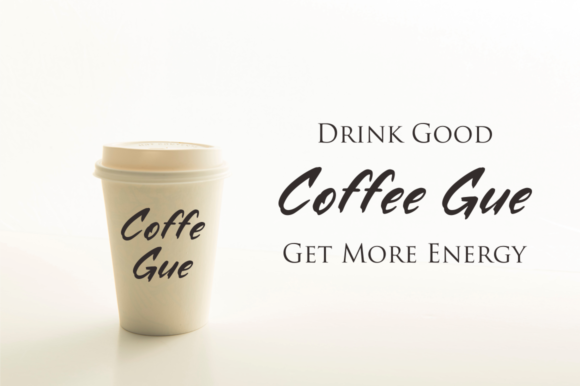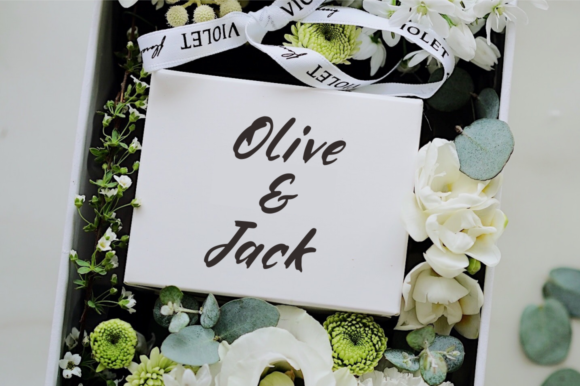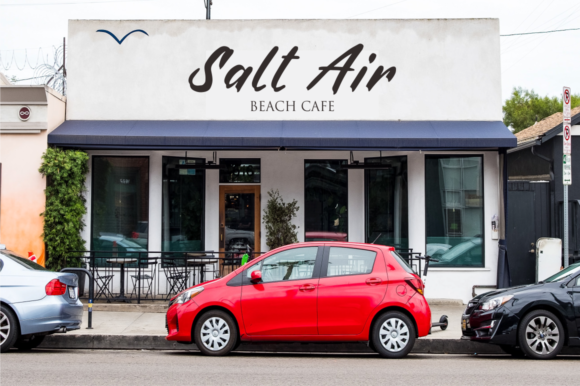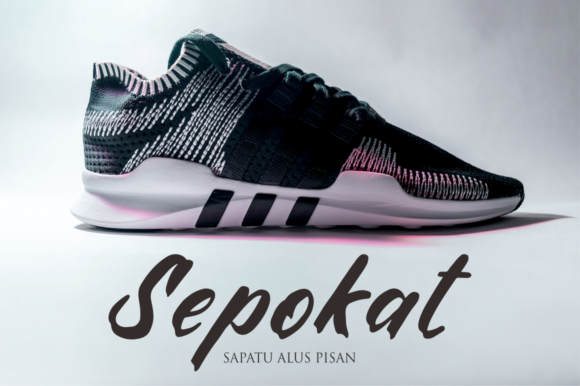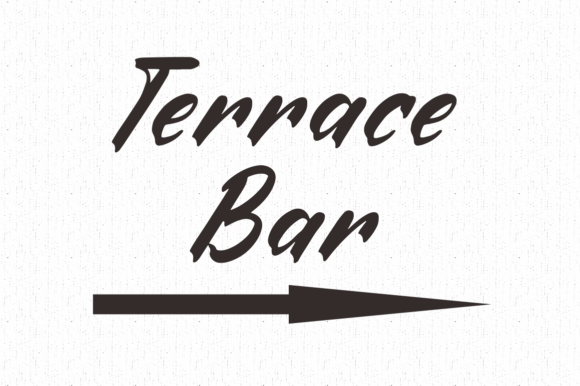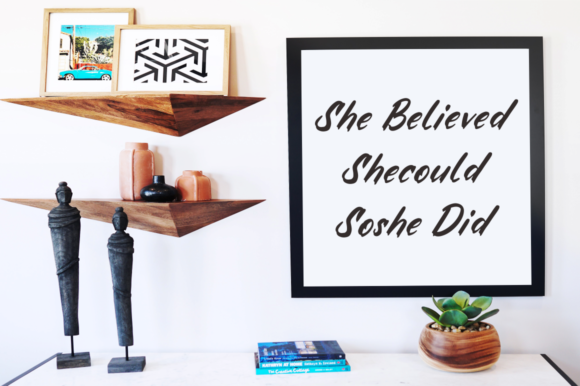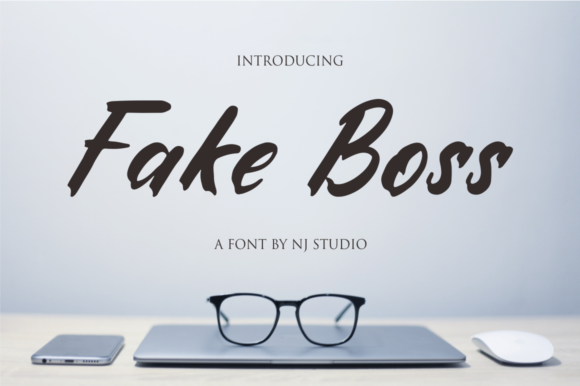
Introducing Fake Boss Font: The Ultimate Modern Handwritten Font for Designers
Are you tired of using the same old fonts in your design projects? Do you want to add a touch of playfulness and authenticity to your creations? Look no further than Fake Boss Font, a modern and gorgeous handwritten font with a cute twist. In this article, we’ll dive into the world of Fake Boss Font and explore its features, benefits, and uses.
What is Fake Boss Font?
Fake Boss Font is a modern handwritten font designed to add a playful and authentic feel to any design project. Its unique and quirky style makes it perfect for designers, crafters, and anyone looking to add a personal touch to their creations. With its clean and elegant lines, Fake Boss Font is versatile enough to be used in a wide range of projects, from branding and advertising to packaging and digital media.
Key Features of Fake Boss Font
- Modern and Handwritten Style: Fake Boss Font boasts a fresh and modern handwritten style that’s perfect for designers looking for a unique and creative font.
- Cute Twist: What sets Fake Boss Font apart from other handwritten fonts is its cute and playful twist, making it ideal for projects that require a touch of whimsy and personality.
- Clean and Elegant Lines: The font features clean and elegant lines that make it easy to read and versatile enough to be used in a wide range of projects.
- Wide Range of Uses: From branding and advertising to packaging and digital media, Fake Boss Font is perfect for any design project that requires a modern and authentic feel.
Benefits of Using Fake Boss Font
So, why should you choose Fake Boss Font for your design projects? Here are just a few benefits of using this amazing font:
- Adds a Personal Touch: With Fake Boss Font, you can add a personal touch to your designs and make them stand out from the crowd.
- Perfect for Branding and Advertising: The font’s modern and playful style makes it perfect for branding and advertising projects that require a fresh and creative approach.
- Easy to Read: Fake Boss Font is easy to read, making it perfect for digital media and packaging projects where clarity is key.
- Versatile: The font’s versatility means it can be used in a wide range of projects, from formal to informal designs.
Who Can Use Fake Boss Font?
Fake Boss Font is perfect for a wide range of designers, crafters, and creatives, including:
- Graphic Designers: Add a touch of playfulness and authenticity to your branding, advertising, and packaging projects.
- Digital Media Designers: Use Fake Boss Font to create engaging and easy-to-read digital media, such as social media graphics and blog posts.
- Crafters: Add a personal touch to your crafting projects, such as handmade cards, gift tags, and DIY decor.
- Small Business Owners: Use Fake Boss Font to create a unique and recognizable brand identity that sets you apart from the competition.
How to Use Fake Boss Font
Using Fake Boss Font is easy! Here are a few tips to get you started:
- Pair it with Other Fonts: Experiment with pairing Fake Boss Font with other fonts to create a unique and eye-catching design.
- Use it for Headings and Titles: Use Fake Boss Font for headings and titles to add a touch of playfulness and personality to your designs.
- Add it to Your Brand Identity: Incorporate Fake Boss Font into your brand identity to create a consistent and recognizable look.
In conclusion, Fake Boss Font is a modern and gorgeous handwritten font with a cute twist that’s perfect for designers, crafters, and creatives looking to add a playful and authentic feel to their design projects. With its clean and elegant lines, versatility, and wide range of uses, Fake Boss Font is a must-have font for any designer or crafter looking to take their designs to the next level.